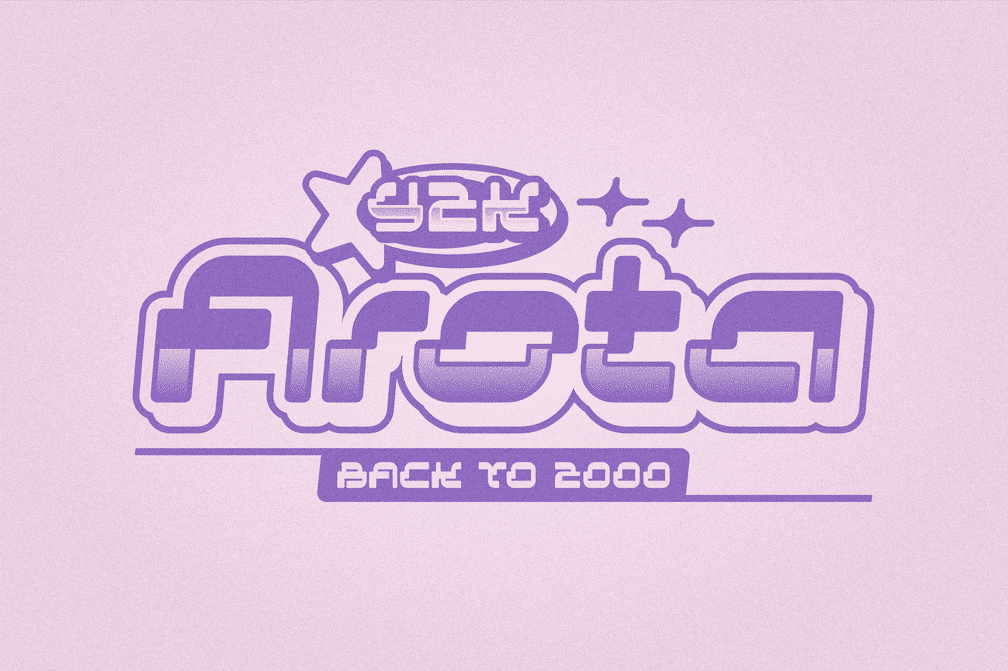
Arota Y2k Display Font
Arota font is a trendy, classic, and unique Y2k-inspired font, perfect for futuristic designs on social media, logos, or illustrations. You can get it with 6 font styles that you can create in designs according to your abilities and creativity.